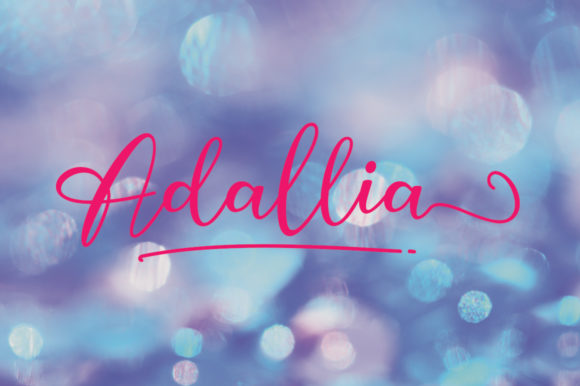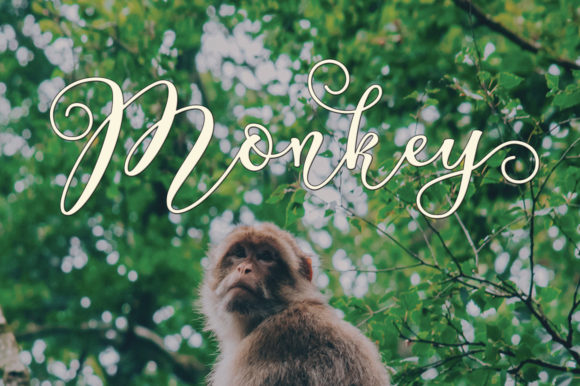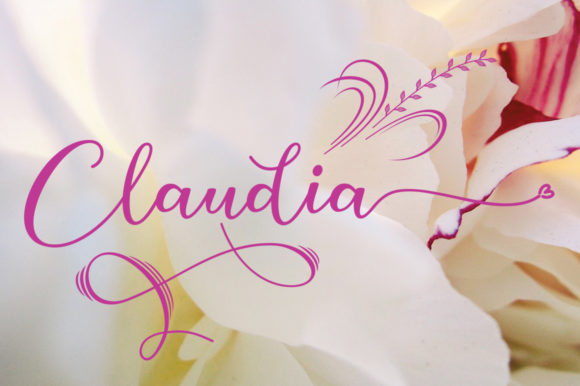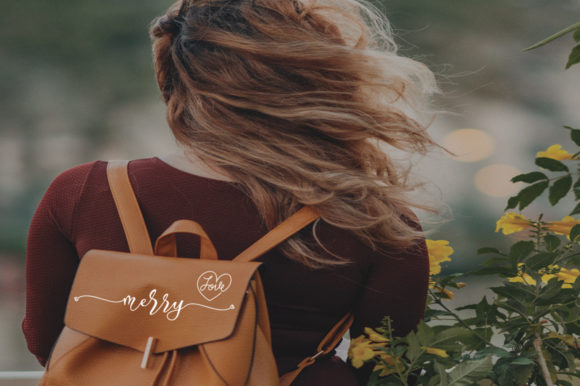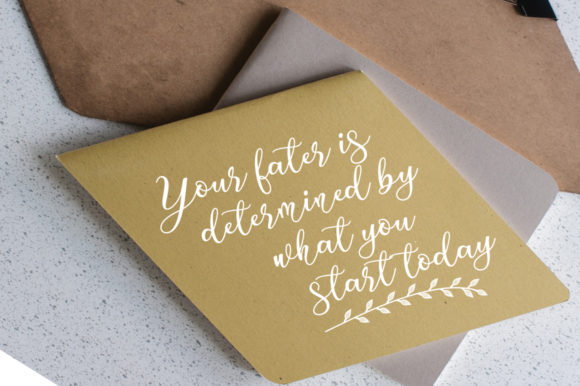
About Carolina Font
Carolina is modern calligraphy at its finest: This gorgeous script delivers both elegance and authenticity, which makes it an outstanding addition to any crafter’s library. This font is PUA encoded which means you can access all of the gorgeous glyphs and swashes with ease! It also features a wealth of special features including alternate glyphs and ligatures.